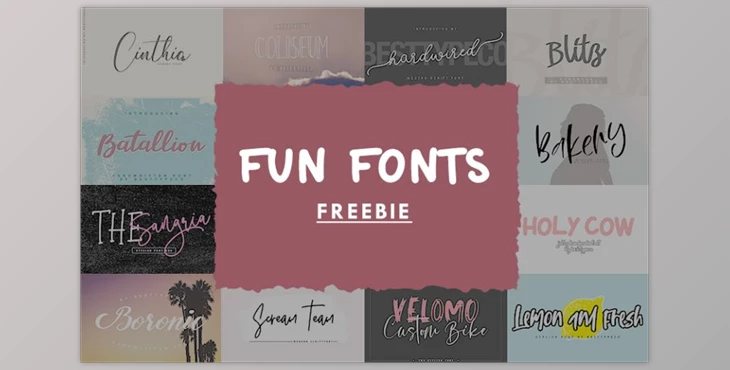
20 Funtastic Fonts Collection: Are you tired of the same boring fonts? Then we've got a fantastic collection of fun, cool fonts! This exclusive collection of 20 Fun Free Fonts will give an enjoyable look to any work.
The 20 fun fonts for free that are included include:
- Bakery
- Batallion
- Blitz
- Boronic
- Coliseum
- Custom craft
- Darkstar
- Dogmatic
- Fully flared
- GetRun
- HandsomeDevil
- Hardwired
- Holy Cow
- Jiguliny
- LemonAndFresh
- Mushroom
- PowerofLove
- Scream Team
- The Sangria 2 Fonts
- VelomoCB2font
Some great features of 20 Funtastic Fonts Collection: